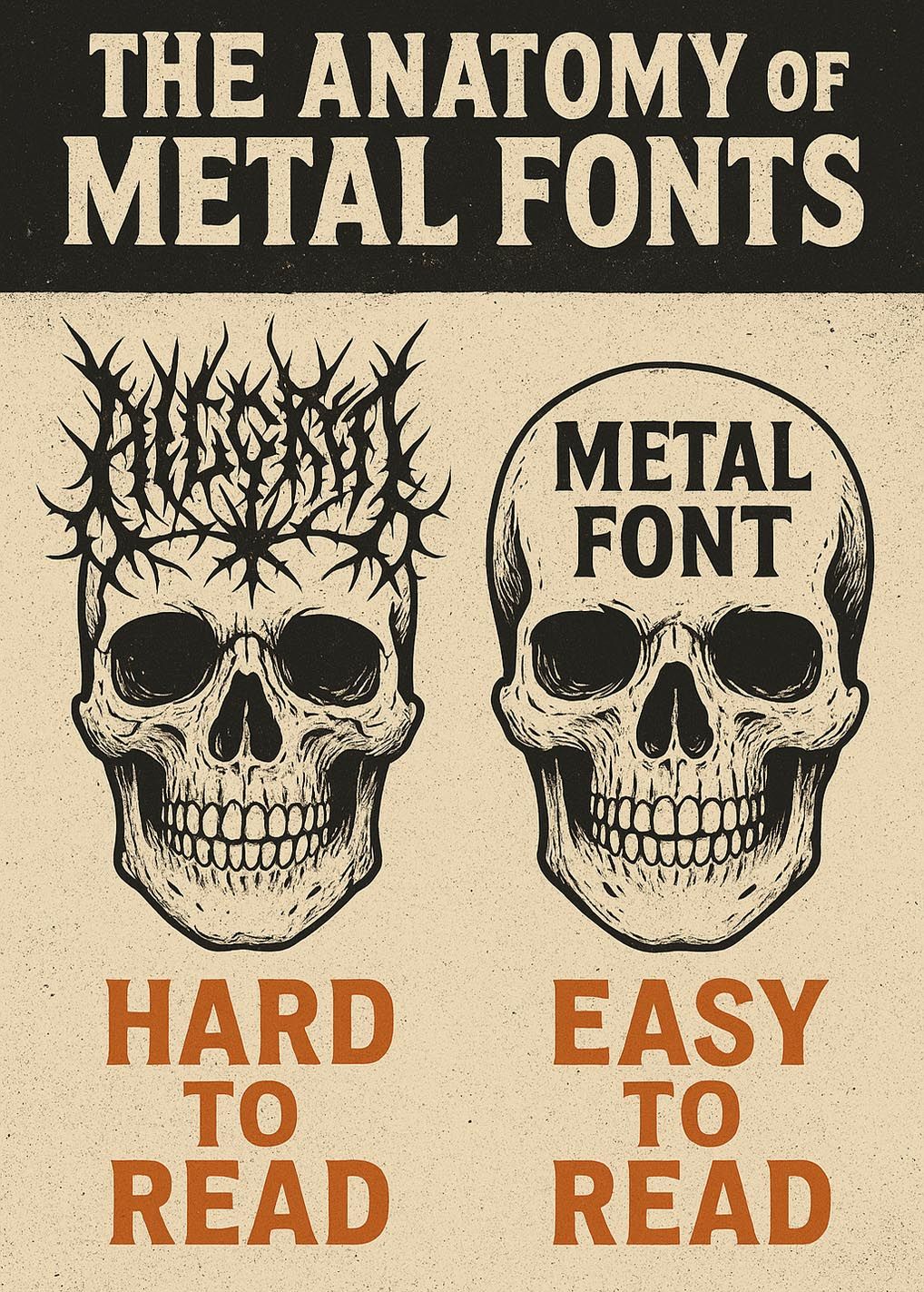
If you’ve ever looked at a black metal band logo and thought,
“What does that even say?” — you’re not alone.
In the world of metal, fonts are more than just letters. They are weapons, aesthetic choices, and identity signals.
But why are some metal fonts so intricate they look like tree branches… while others are bold, clean, and legible?
Let’s break down the structure and philosophy of metal fonts—why some are unreadable on purpose, and why others keep it simple.
🧩 1. The Dual Nature of Metal Typography
Metal fonts tend to fall into two camps:
- Illegible, aggressive, highly ornamental fonts
(Think: black metal, deathcore) - Readable, bold, statement fonts
(Think: heavy metal, thrash, metalcore)
Each serves a different purpose—just like the subgenres they represent.
🌲 2. Why Some Fonts Are Hard to Read (and That’s the Point)
Fonts used in black metal and brutal death metal are designed to be cryptic:
- Twisted lines, thorns, blood-like drips
- Sharp angles, mirrored forms, chaos symmetry
These fonts aren’t meant for quick reading.
They’re meant to:
- Convey atmosphere: cold, savage, unholy, or ritualistic
- Gatekeep casual viewers (you have to earn the read)
- Reflect the raw sound of the music
A black metal logo is a visual spell—not just a name.
💥 3. Why Some Fonts Are Easy to Read (and Still Metal)
Other subgenres, like thrash, stoner, sludge, or metalcore, prefer strong, bold type:
- All-caps, distressed sans-serifs
- Heavy brush or angular fonts
- Gothic influences mixed with legibility
These fonts focus on:
- Impact: for posters, merch, social media
- Recognition: fans need to remember your name
- Branding: easy to print, easy to sell
A legible font says: “We’re here, we’re loud, and you WILL remember our name.”
🧠 4. Form Follows Sound
The structure of a metal font often mirrors the band’s sound and identity:
- Chaotic band = chaotic font
- Technical band = geometric or sharp font
- Groove/stoner band = chunky, fuzzy font
- Mythical/folk metal = calligraphic or rune-inspired font
A font is like a visual genre tag.
You should feel the sound just by looking at the letters.
🎯 5. The Art of Balance: Readability vs. Identity
Some of the most successful metal logos strike a balance:
- Intricate, but with hidden readability
- Symbolic, but still recognizable
- Stylized, but consistent
These are often custom-drawn, hand-lettered, or made using hybrid fonts.
They don’t scream at the viewer… they whisper dark secrets.
✍️ 6. Font Design Tips for Metal Creators
If you’re designing a metal font or logo:
- Understand the target subgenre
- Don’t be afraid to go unreadable—if that’s the vibe
- But also consider where it’ll be used: merch, streaming covers, posters
- Focus on shape language: symmetry, spikes, contrast
And remember:
A good metal font doesn’t just say a name—it tells a story.
Conclusion
Metal fonts aren’t just text—they’re part of the music.
Whether chaotic or clean, they serve the emotional, cultural, and aesthetic goals of the genre.
So next time you struggle to read a band logo, don’t be frustrated.
You’re not just looking at letters. You’re looking into the abyss—and it’s staring back in style.